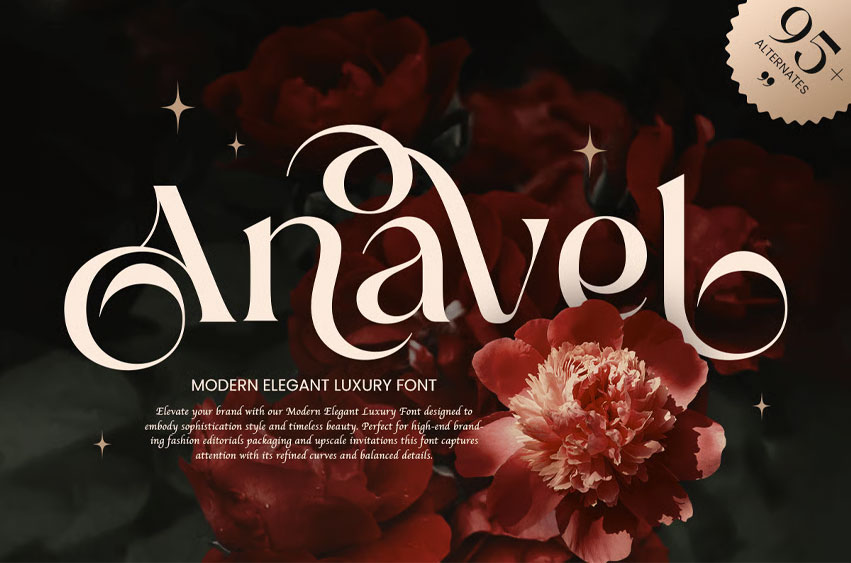
Anavel Font
Anavel Font is a modern, elegant luxury font crafted for high-end branding, logos, wedding invitations, and premium projects. Its sleek and refined letterforms provide a stylish, sophisticated touch that enhances any creative design.
Inspired by contemporary elegance, Anavel blends modern minimalism with luxurious appeal, making it ideal for fashion, lifestyle, and luxury brands across print and digital media.
Anavel – Modern Elegant Luxury Font Features
• Elegant and modern character set
• Perfect for branding, logos, and premium designs
• OpenType features for extra versatility
Bring sophistication and luxury to your projects with Anavel – the ultimate modern, elegant font!